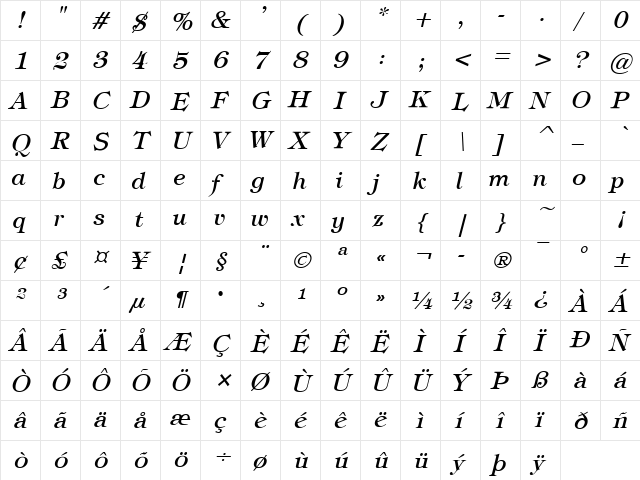
Jewel Italic
Design Context for Jewel Typeface
Jewel offers clean, dependable letterforms without strong stylistic allegiance, making it a practical choice for designers who need flexibility. The dynamic lean of this cut emphasises speed and emphasis in any layout.
Pro Tip: Try Jewel for annotation and caption copy alongside an upright companion — the contrast in angle creates a dynamic but ordered typographic system.